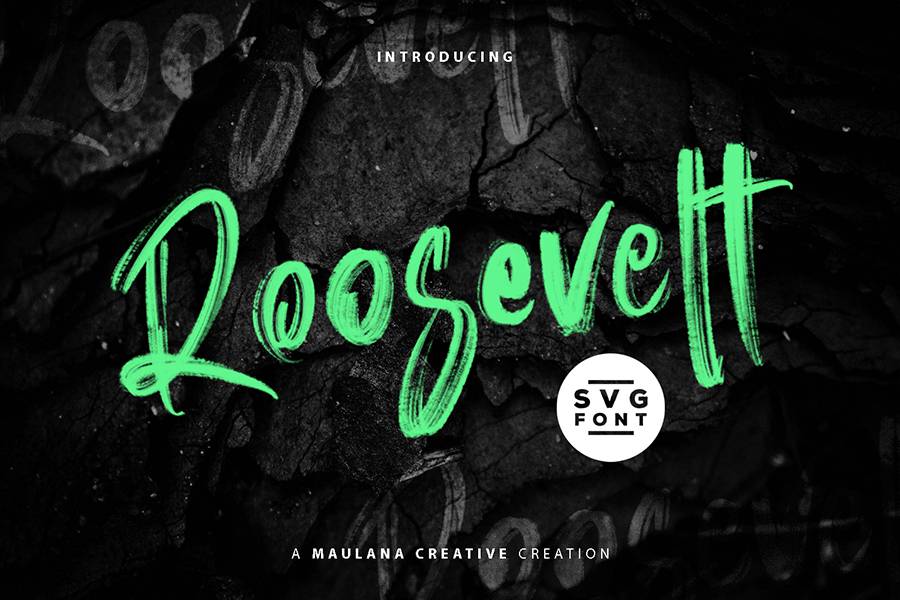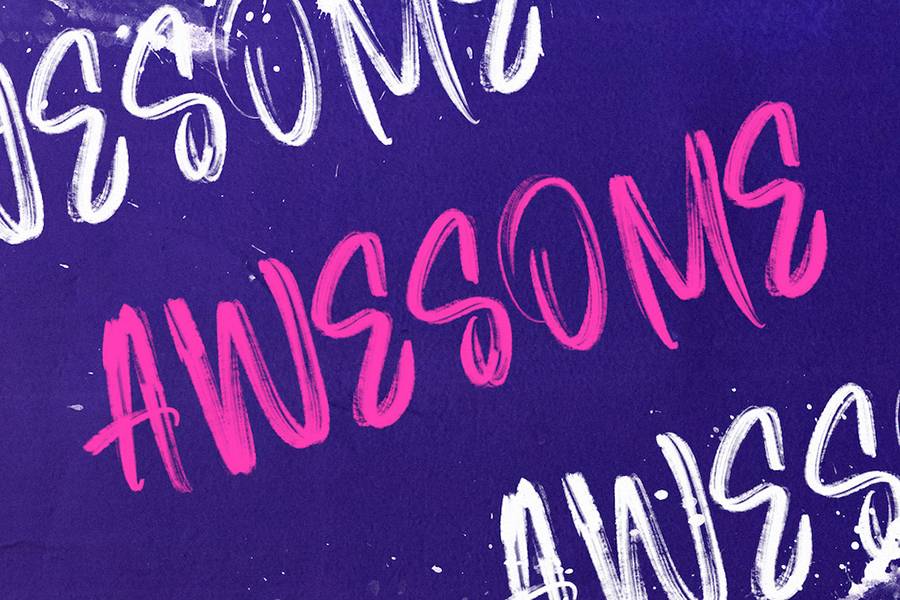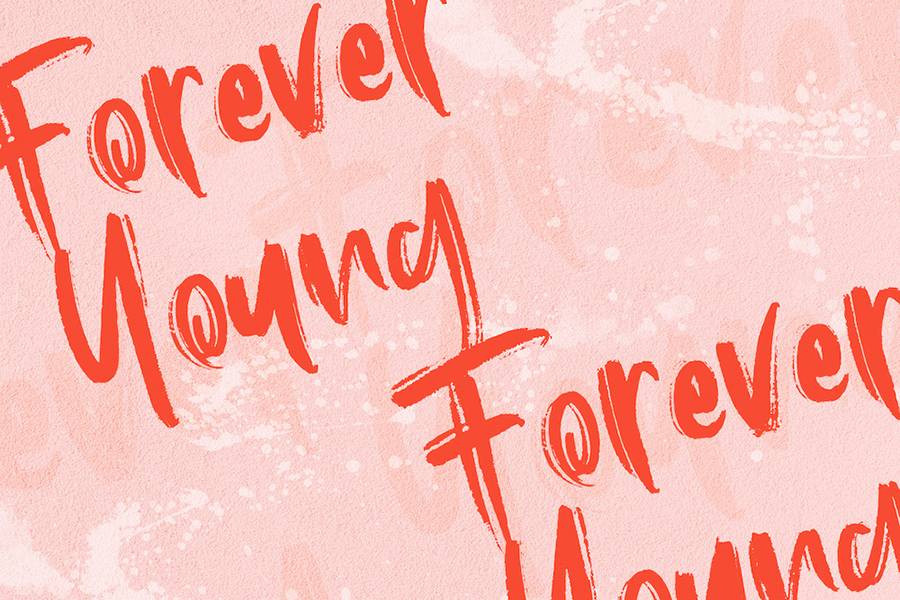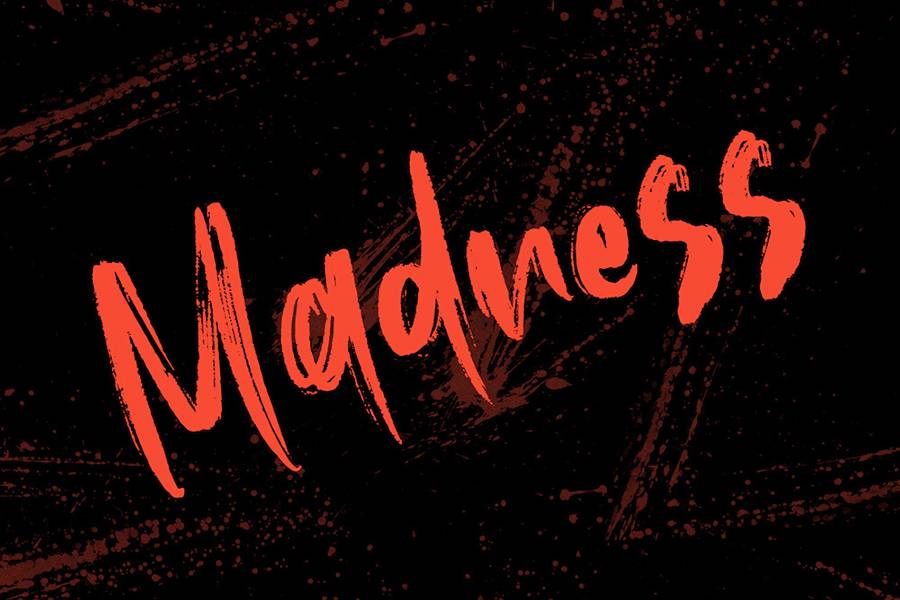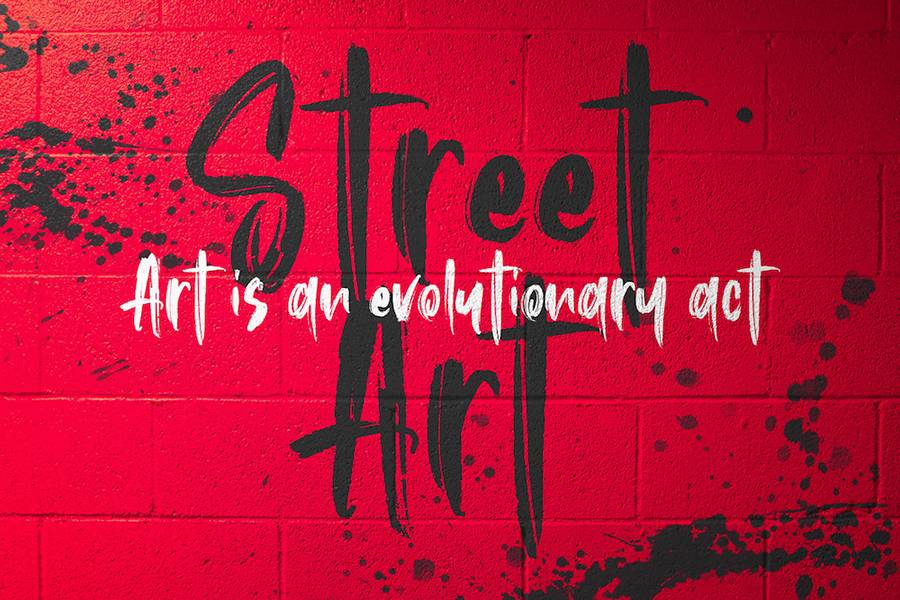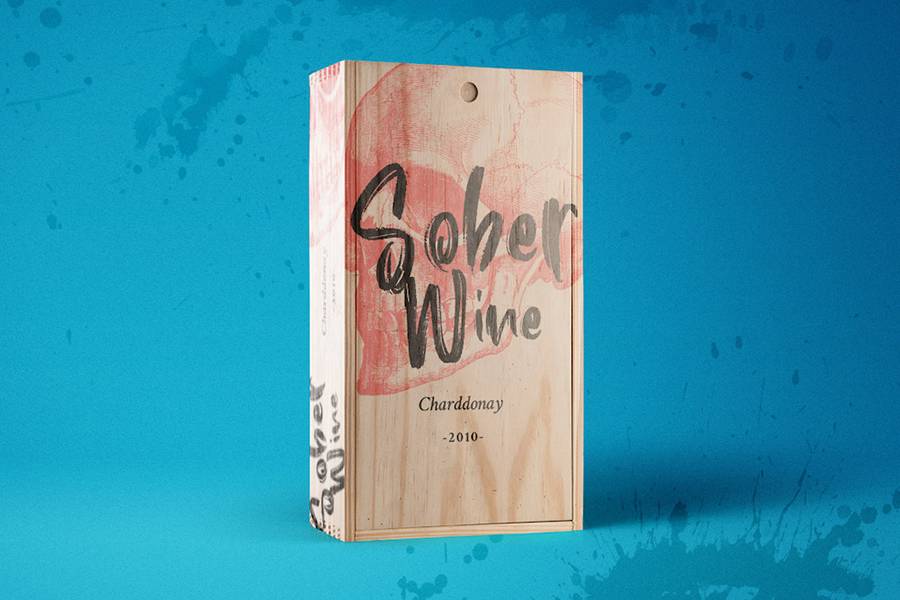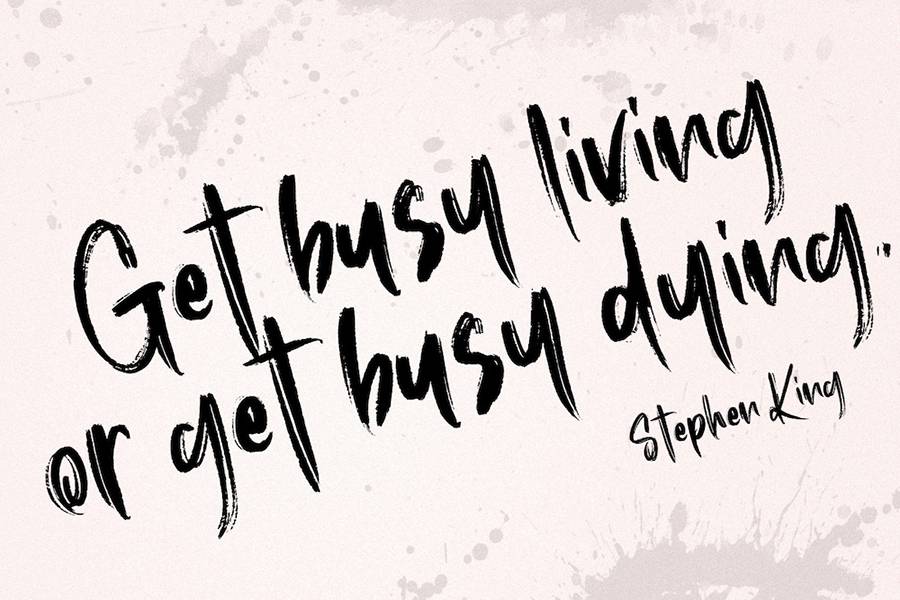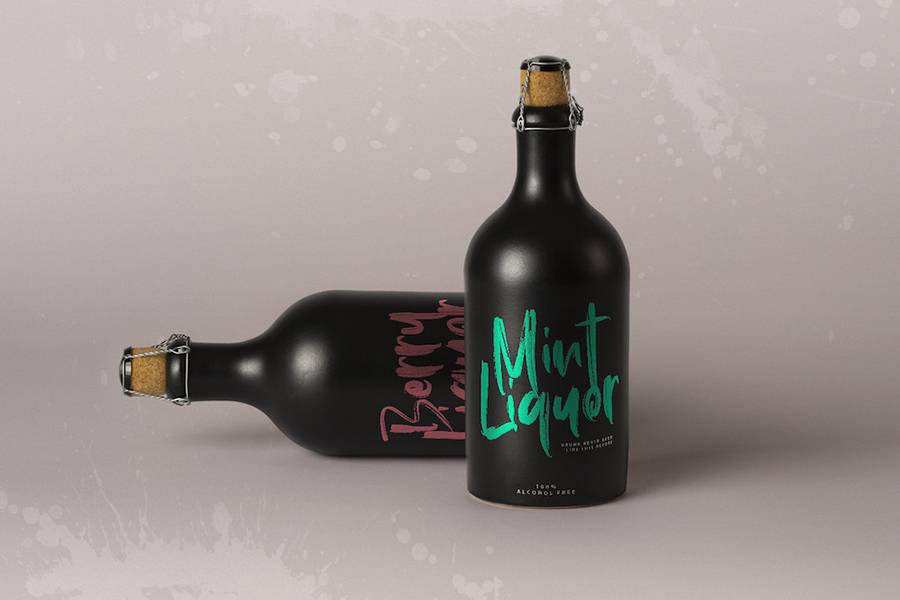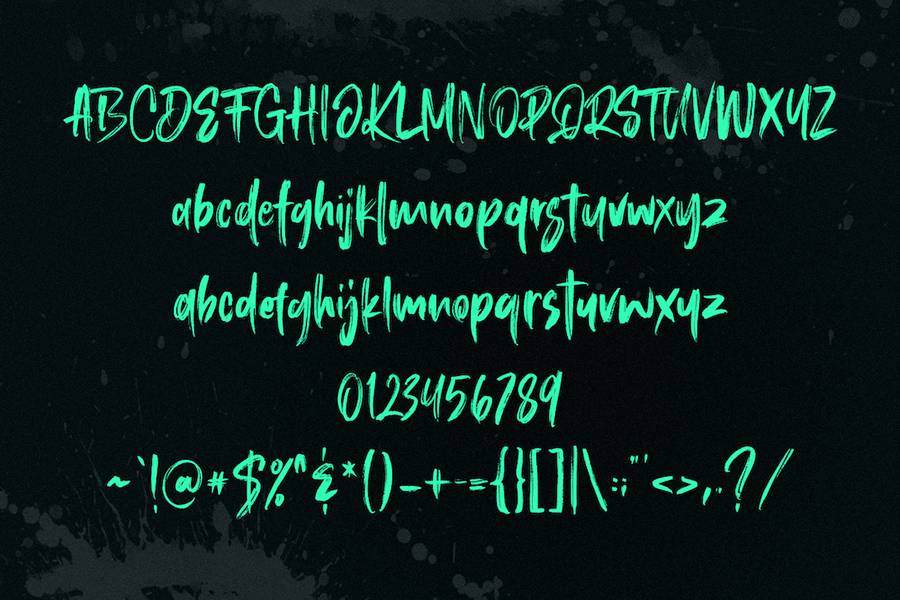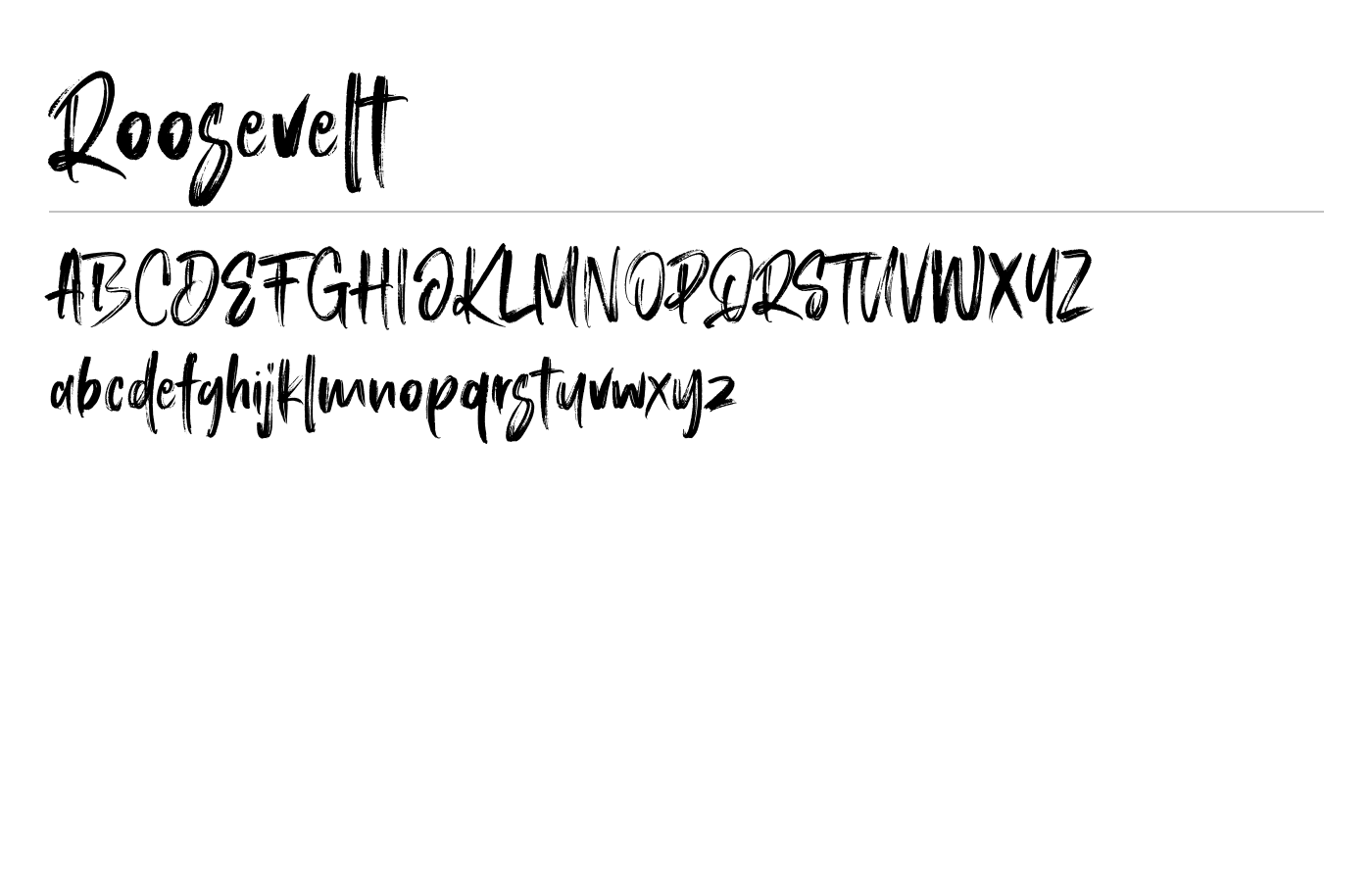
Roosevelt Brush Font Demo
Roosevelt Brush Font Demo is here! Give your designs an authentic brush handcrafted feel. “Roosevelt” is perfectly suited to signature, stationery, logo, typography quotes, magazine or book cover, website header, flyer, clothing, branding, packaging design and more.